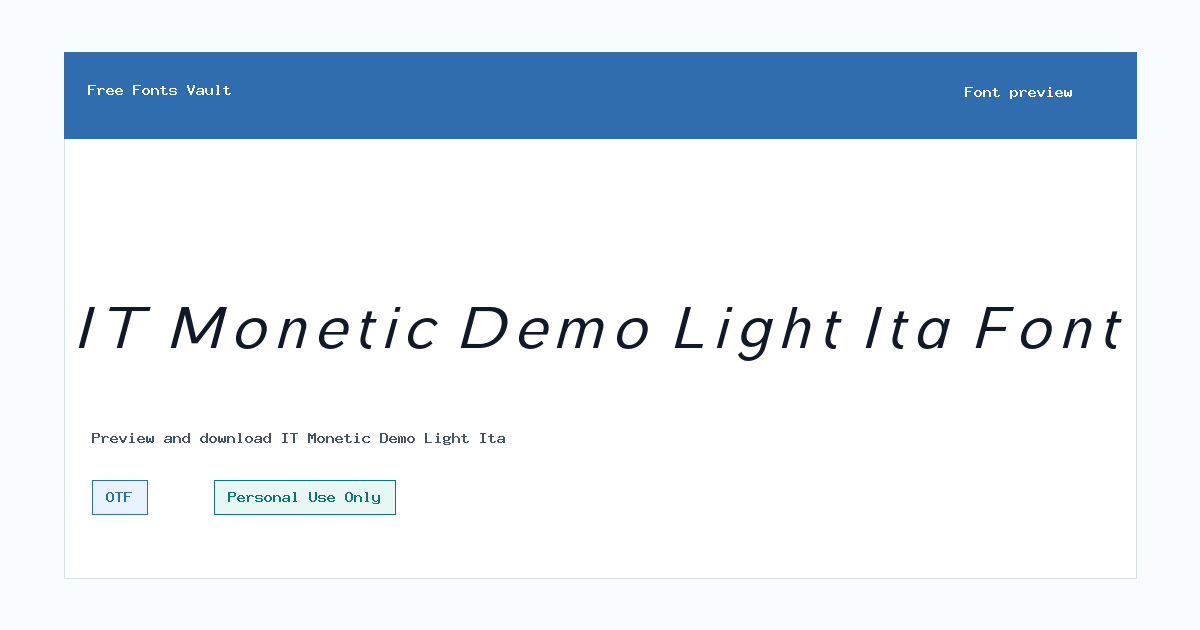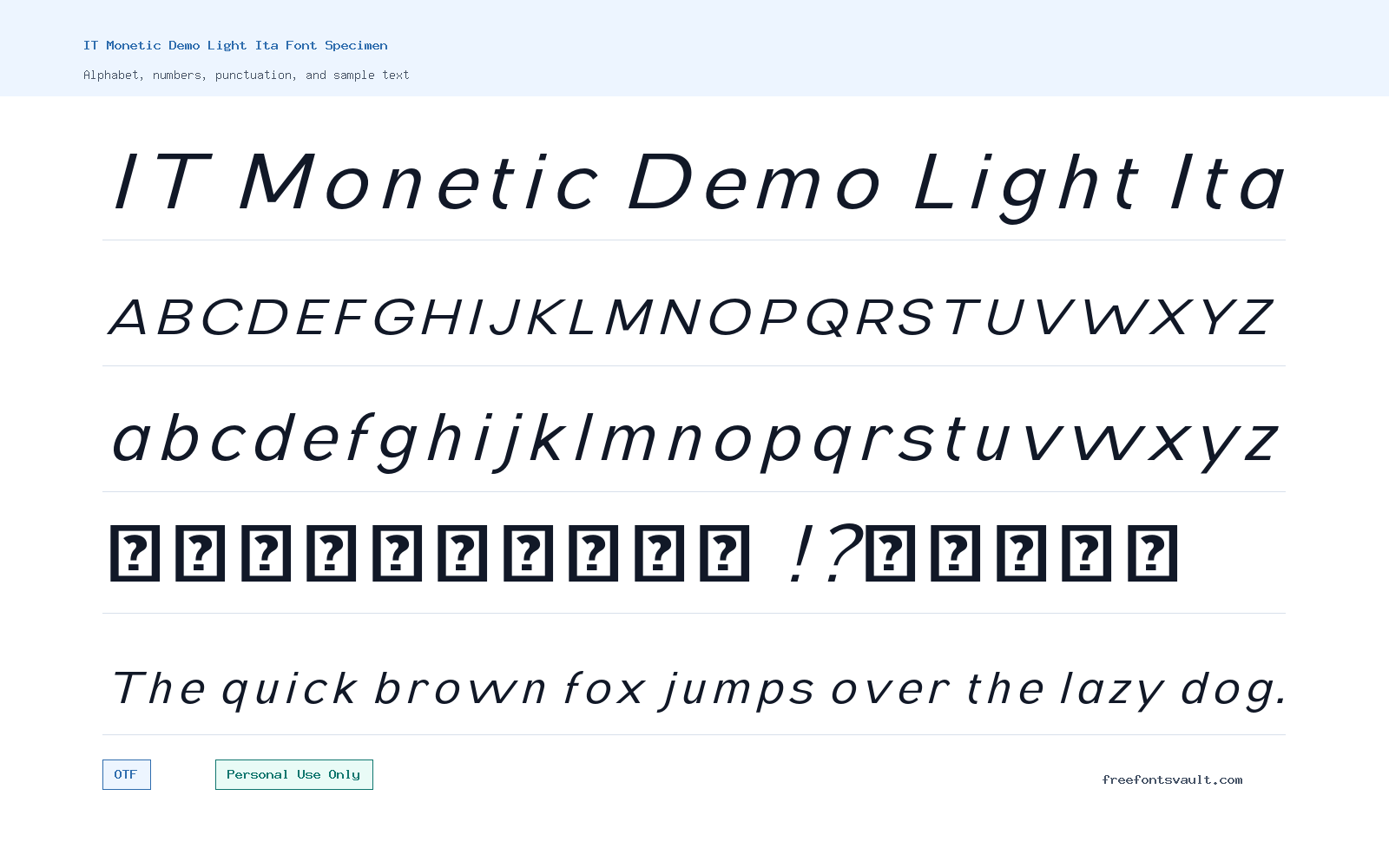
IT Monetic Demo Light Ita
- Designer Indotype
- Foundry Indotype Foundry
IT Monetic Demo Light Ita font.
IT Monetic Demo Light Ita is a light italic OpenType font from Indotype Foundry. It is best approached as a personal-use demo style for previewing elegant slanted text in headings, mockups, and visual layout tests.
About IT Monetic Demo Light Ita Font
IT Monetic Demo Light Ita uses a light weight with an italic style, giving text a lean and angled appearance. Because the available file is a demo Light Italic OTF, it is most useful when you want to test a softer, more refined typographic voice without the visual weight of a bold display face. The slant can help short words feel more expressive, while the 300 weight keeps the texture airy. That combination can work well for title treatments, fashion-style layout tests, editorial mockups, quote graphics, invitation concepts, and personal branding drafts where the text should feel polished rather than heavy.
- Light italic style with a 300 font weight for refined short-text settings.
- Works best in larger display settings where the thin strokes and italic angle can remain clear.
- Personal design experiments, mood boards, and typography studies.
- Logo concepts, wordmarks, and brand direction mockups that need a light italic tone.
- Posters, quote graphics, invitation drafts, and social media layouts with short text.
- Website hero mockups, editorial headings, and elegant title treatments.
Set IT Monetic Demo Light Ita in short, deliberate text rather than long reading blocks. Its light italic style can look clean in headings and mockups, but thin strokes need enough size, contrast, and spacing. Pair it with a simpler upright sans serif for body copy so the italic style remains an accent. For posters or web mockups, avoid low-contrast backgrounds and check the result on both desktop and mobile sizes. For logo concepts, adjust tracking carefully and test the final word shape in black and white before adding color or effects.
What style is this font?
IT Monetic Demo Light Ita is a light italic style with a 300 weight. It has a slanted, lighter appearance suited to short display text.
Is this good for body text?
It is better for short headings, names, labels, and display accents. Light italic fonts can become harder to read in long paragraphs or small sizes.
What should I pair it with?
Pair it with a clean upright sans serif or a quiet text face. Let IT Monetic Demo Light Ita handle the expressive headline or accent role while the companion font carries longer reading text.